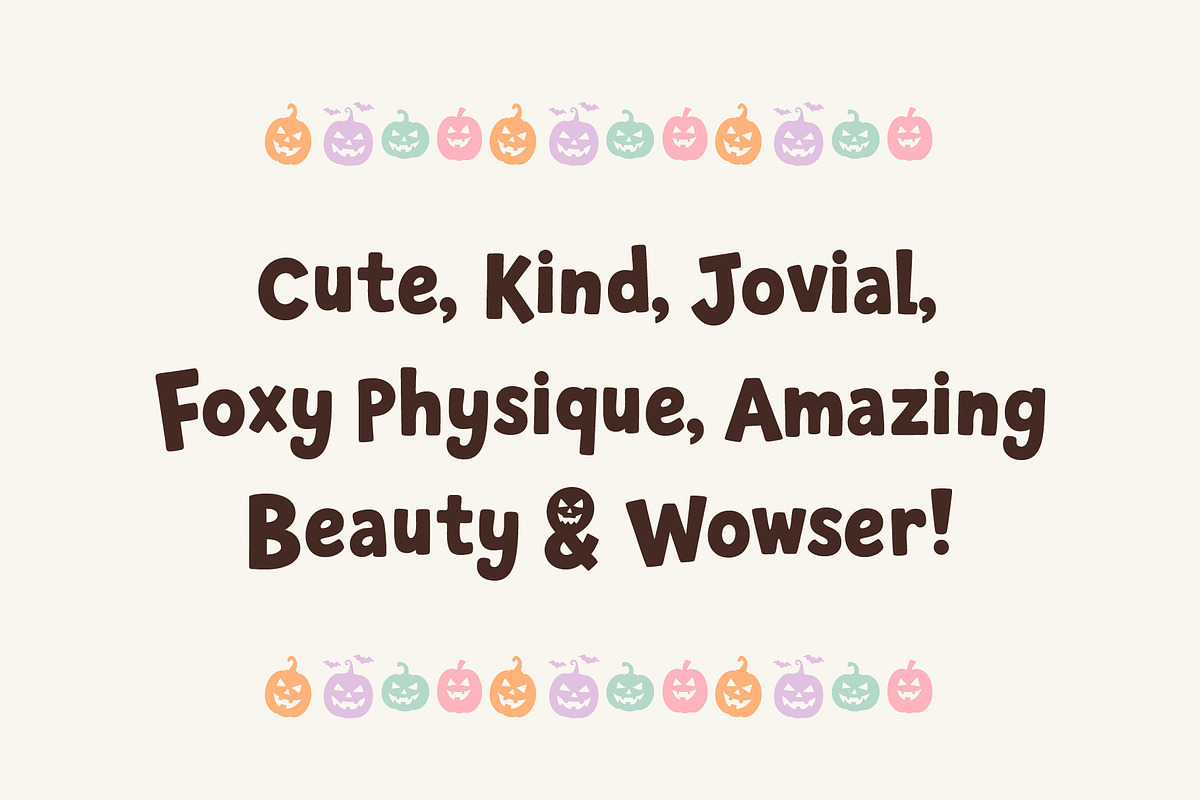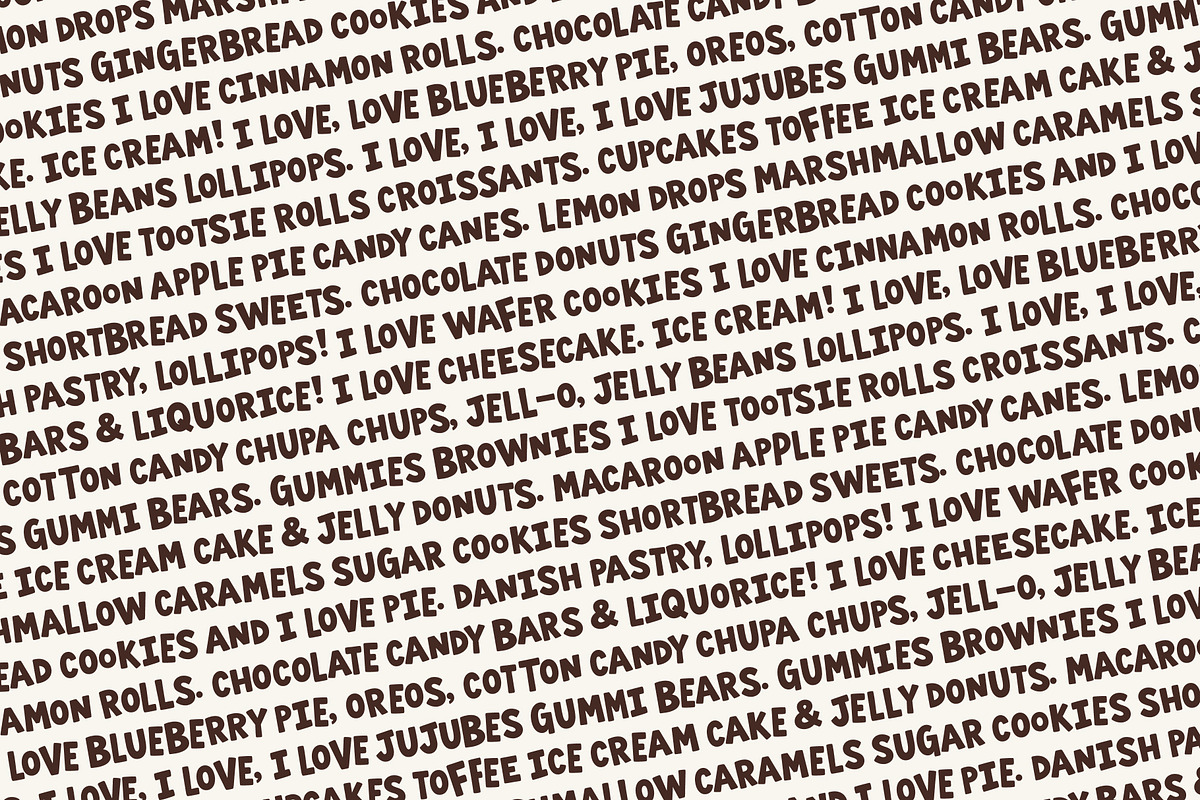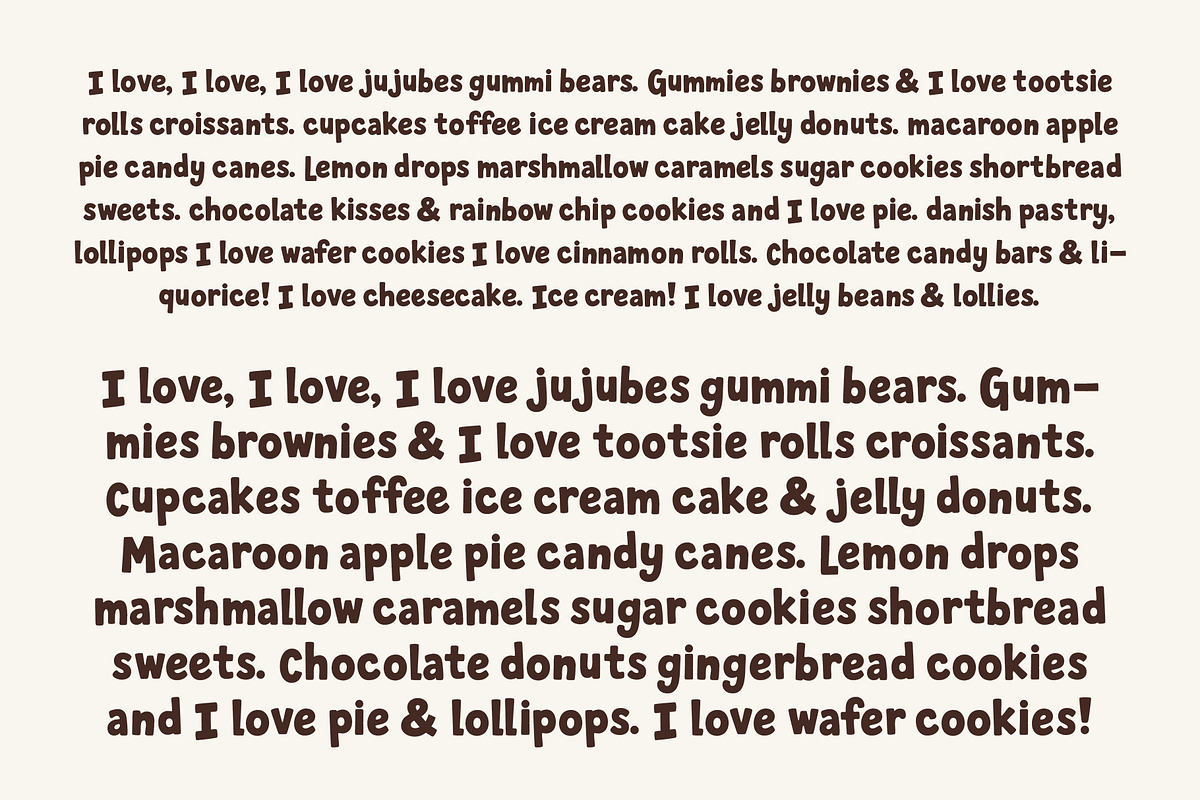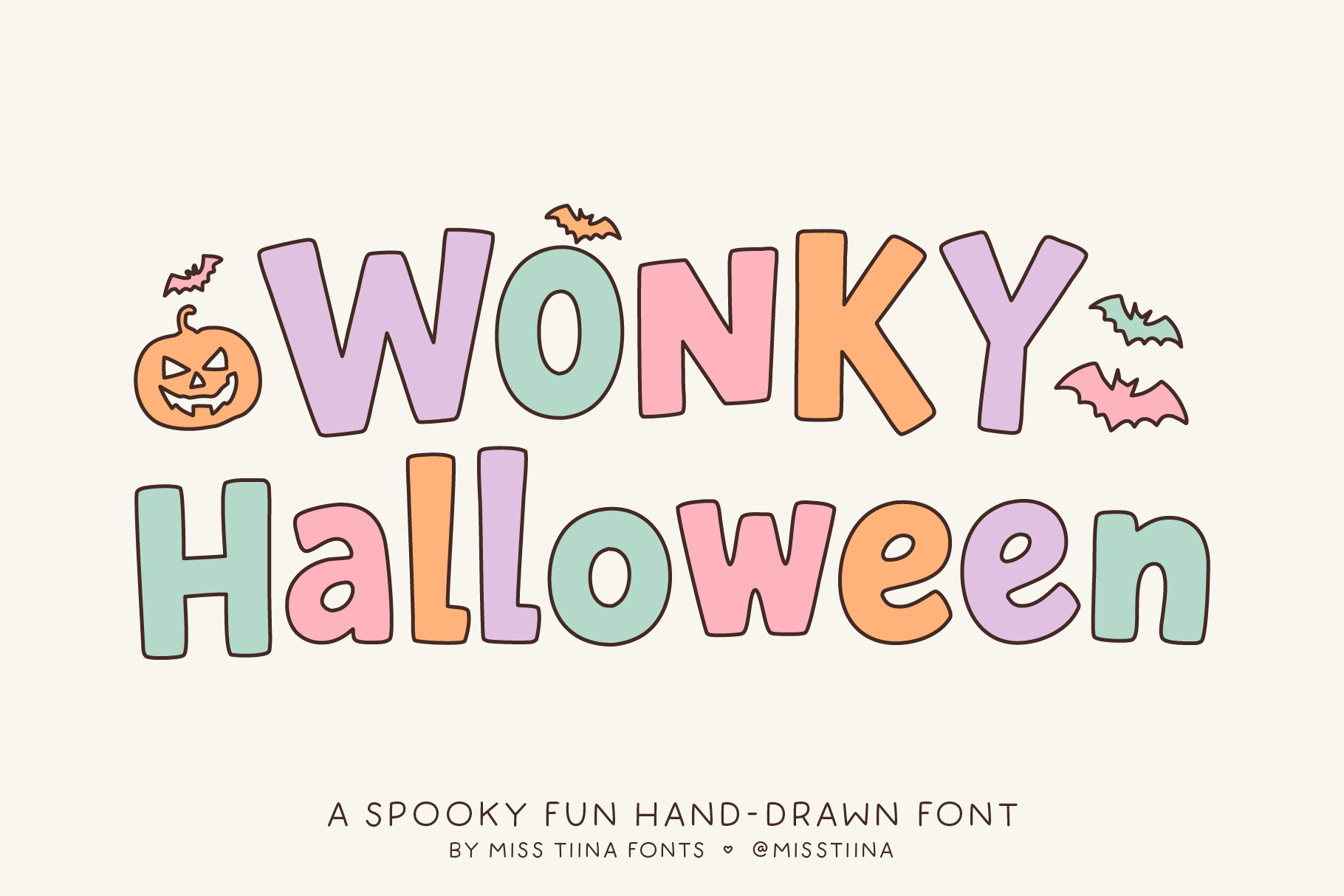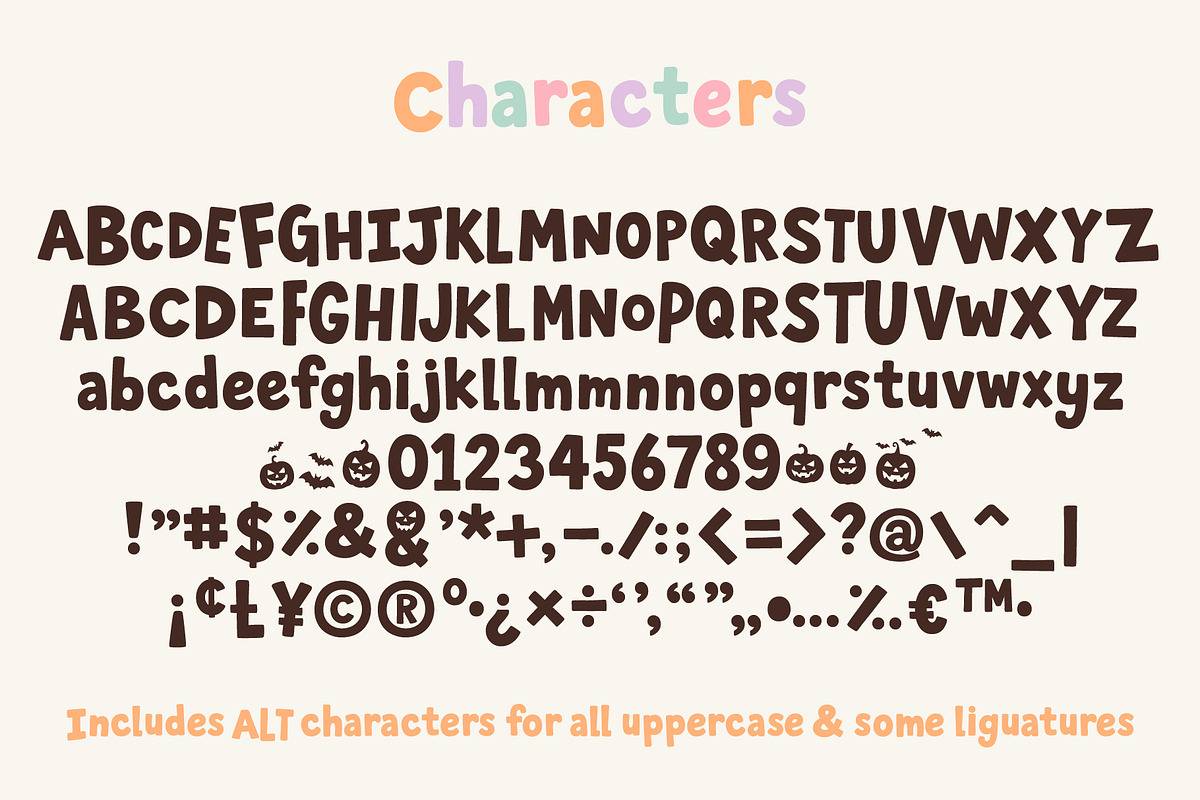
Wonky Halloween Font
Wonky Halloween is a playful and spooky font with a twist! Featuring quirky hand-drawn letters and fun dingbats of pumpkins and bats, it’s perfect for Halloween party invites, trick-or-treat signs, crafts, and all your frightfully fun projects. 🎃🦇